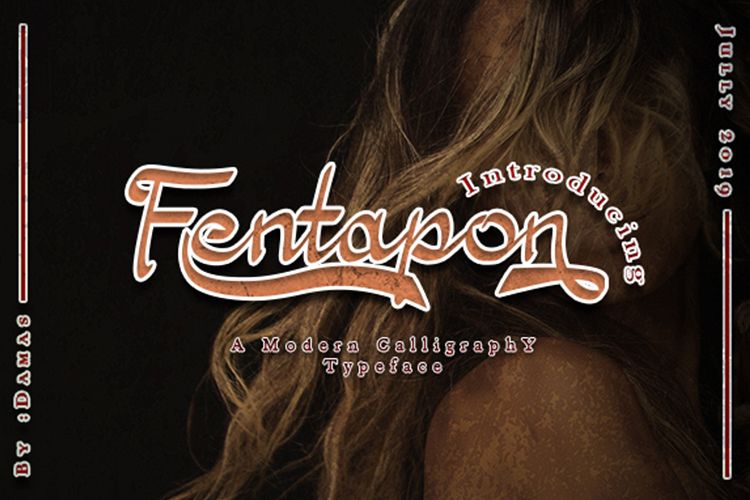
Fentapon
Fentapon is a stunning, this font comes with stylish characters and stunning swashes so you can create nostalgic, painterly looking typographic designs.